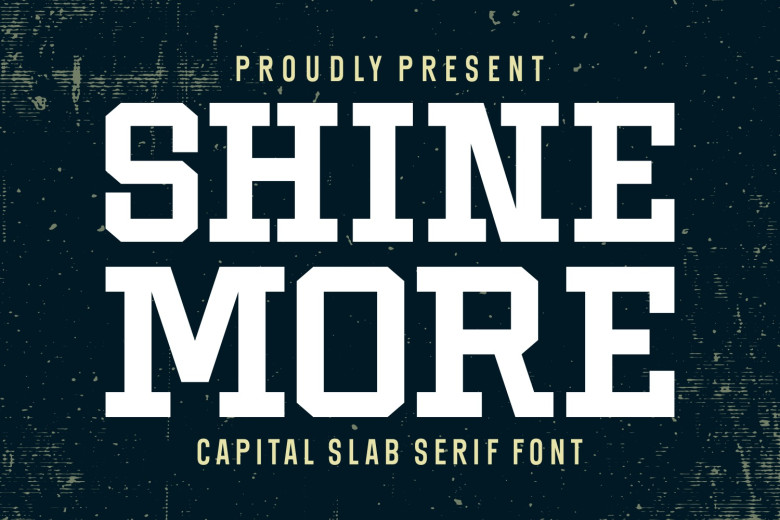
Shine More Font
Shine More is retros slab serif all caps display font was designed by Jasm 7NTypes and features bold strokes for added fun, as well as some ligatures and alternative fonts that can make any font more visually attractive. A great addition to any font library.
Shine More Slab Serif Font